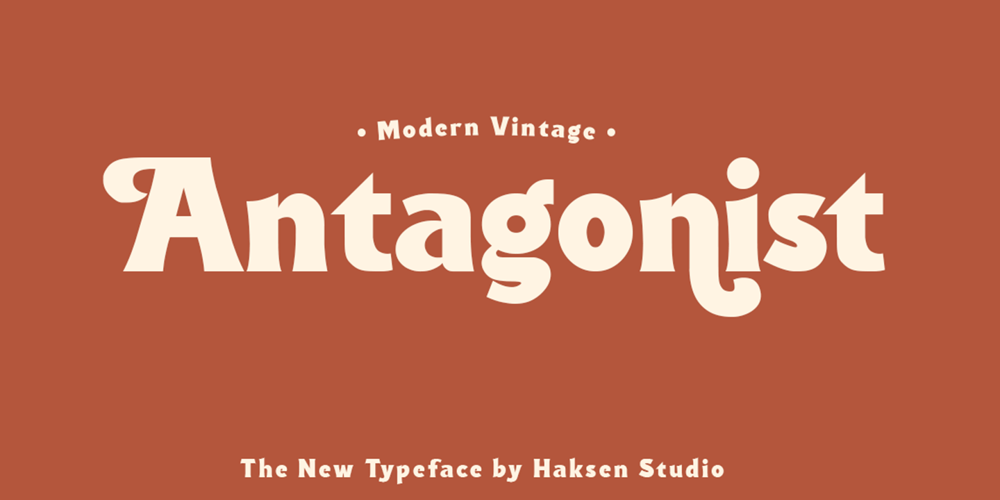
Antagonist
Antagonist font
Antagonist Font Family was designed by Sarwo Edhi Prayitno and published by Haksen. Antagonist contains 2 styles and family package options. Antagonist is a Bold elegant modern vintage serif style with upper and lowercase feel nice balanced. Its wide range of uppercase and lowercase alternates allow versatile design options and works perfectly for headlines, logos, posters, packaging, T-shirts, postcards and much more.Recommended to use in Adobe Illustrator or Adobe Photoshop with opentype feature.How to access Alternate Characters?Open glyphs panel : In Adobe Photoshop choose tool Window >> glyphs In Adobe Illustrator choose tool Type >> glyphs Have a great day,Haksen